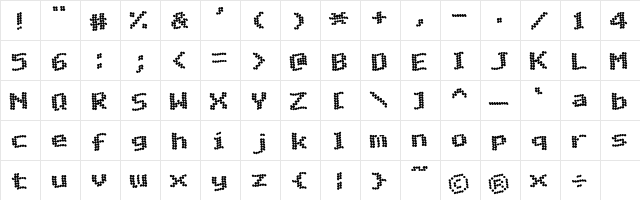
Matrix Complex Wave NC Regular
Design Context for Matrix Complex Wave NC Typeface
Matrix Complex Wave NC is a composed and adaptable typeface that performs quietly and consistently across a wide range of design contexts.